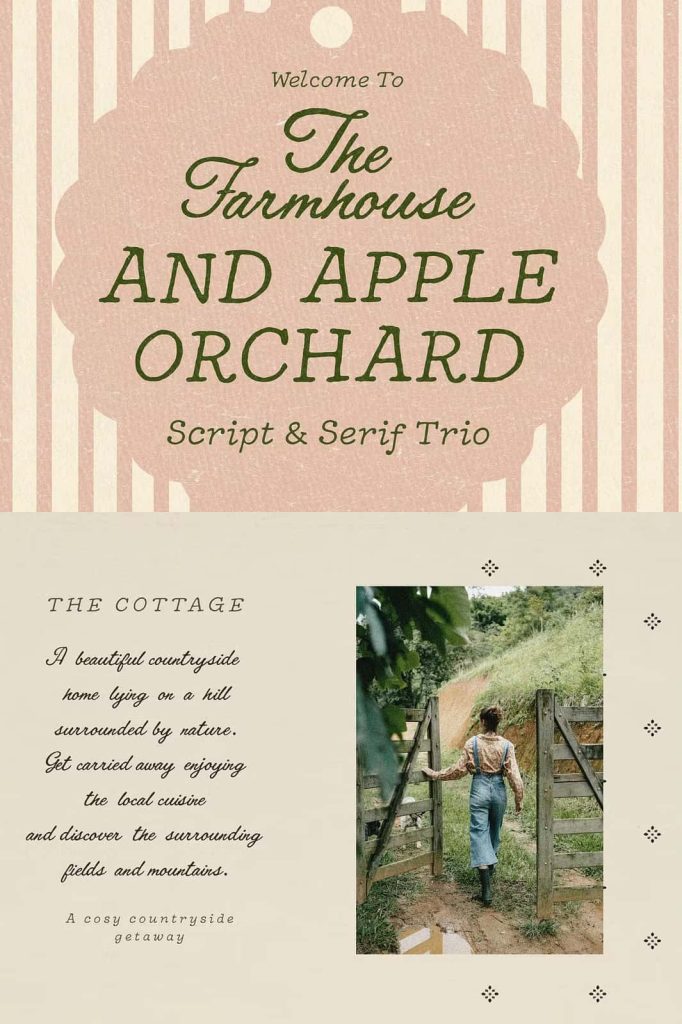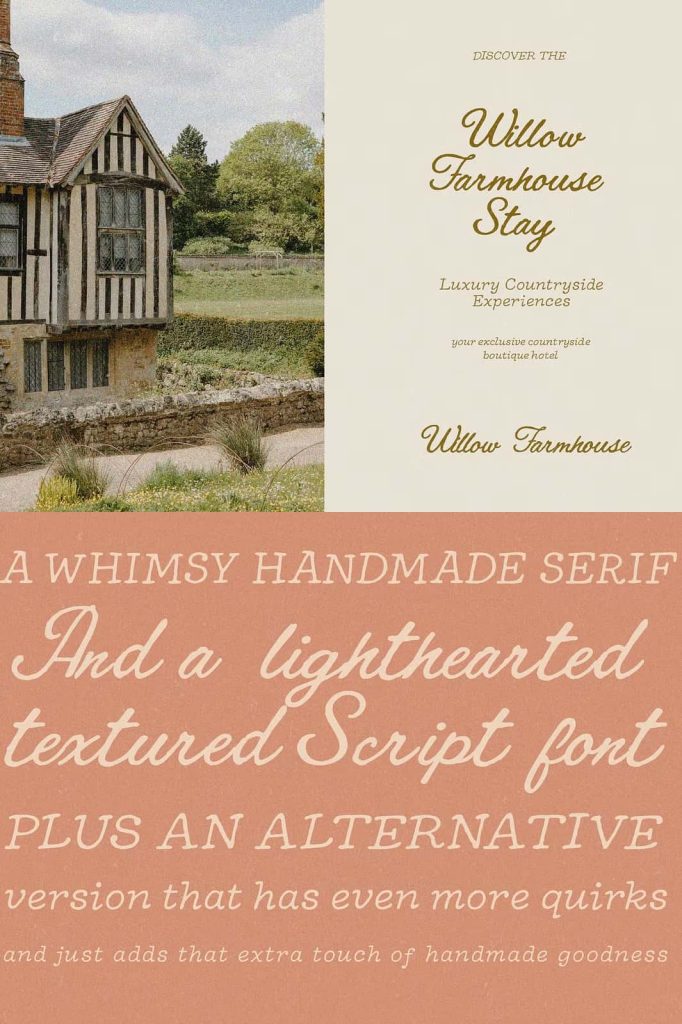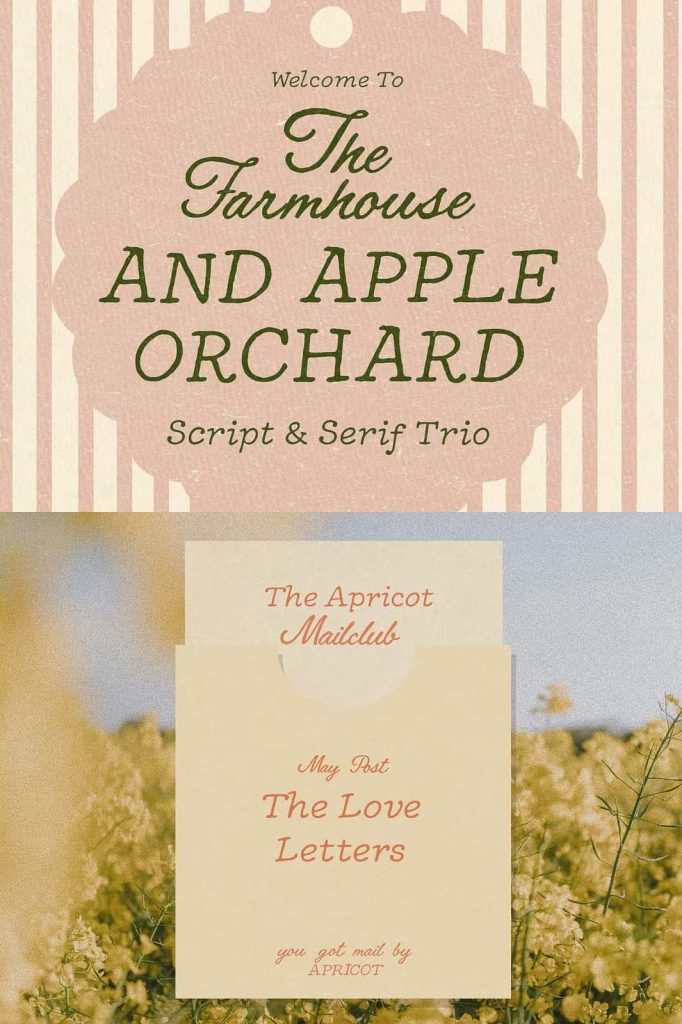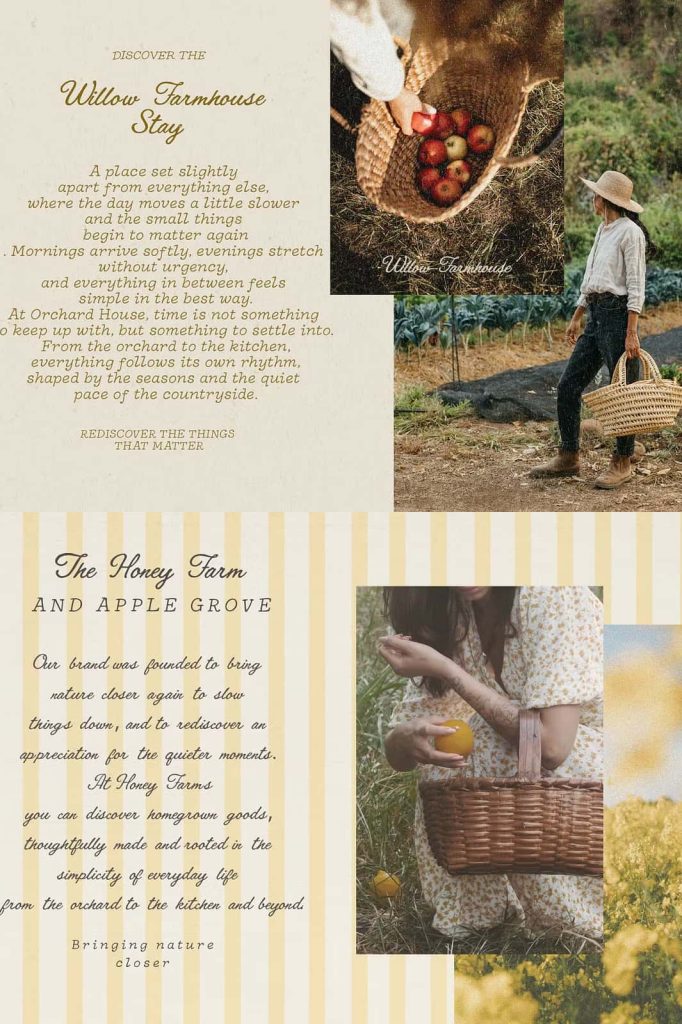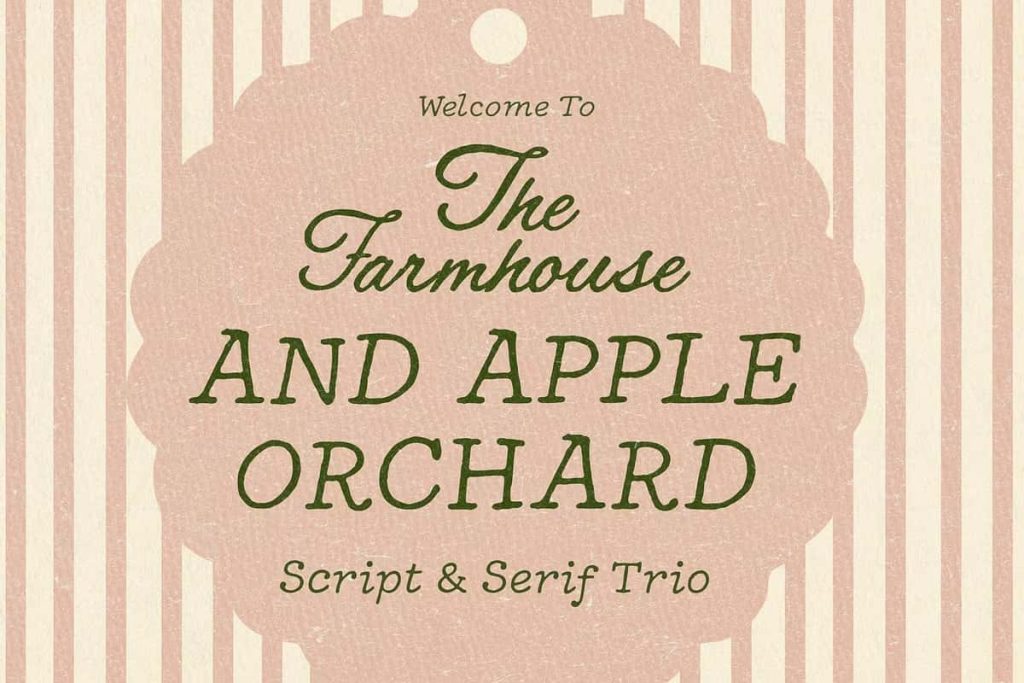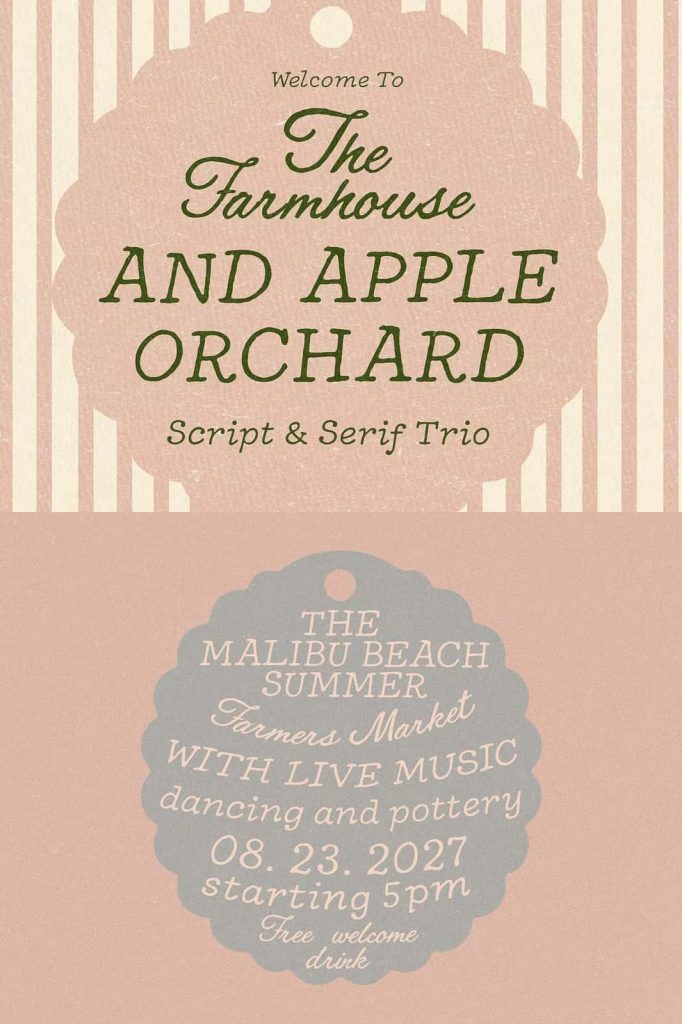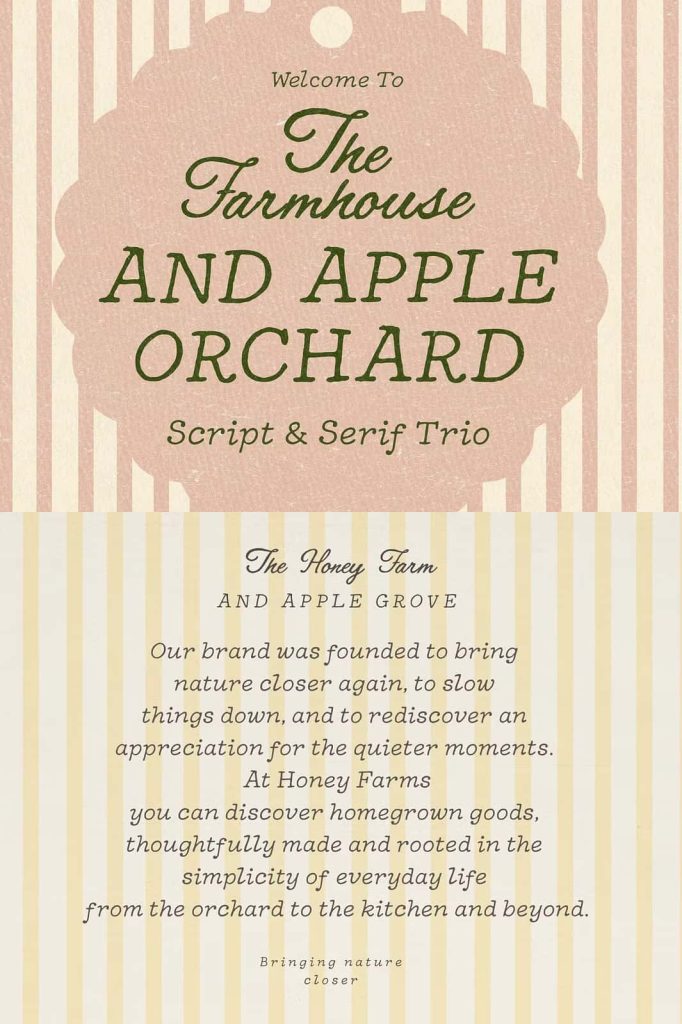
Handwritten Whimsy Serif and Script Font Duo for Elegant and Creative Designs
Handwritten Whimsy Serif and Script is a beautifully crafted font duo that combines the warmth of natural handwriting with the timeless charm of a whimsical serif typeface. Designed to feel authentic, artistic, and effortlessly stylish, this typeface collection helps designers create projects that are both personal and visually captivating. Whether you’re developing a memorable brand identity, designing elegant invitations, or creating eye-catching packaging, this font duo delivers the perfect balance between handcrafted expression and refined typography.
The collection features a softly handwritten script with a naturally flowing rhythm and a whimsical serif that adds structure without losing its playful personality. Together, these complementary typefaces create harmonious typography that feels relaxed, inviting, and professionally designed. Every letter has been carefully developed to preserve the beauty of authentic handwriting while offering the flexibility needed for modern creative projects.
A Perfect Combination of Script and Serif
The true strength of Handwritten Whimsy Serif and Script lies in the way both typefaces work together. The handwritten script introduces movement, warmth, and personality, while the whimsical serif provides stability and elegant contrast. This pairing allows designers to create sophisticated layouts that maintain a handcrafted appearance without sacrificing readability.
The script flows naturally from letter to letter with subtle irregularities that mimic genuine handwriting. Instead of appearing overly polished or mechanical, each character carries unique details that make every word feel personal and expressive. Meanwhile, the serif font introduces a grounded structure that supports headlines, subheadings, and body accents with confidence.
Inspired by Authentic Handwritten Expression
Modern audiences appreciate designs that feel genuine and human. Handwritten Whimsy Serif and Script embraces this philosophy by celebrating the natural imperfections found in handwritten lettering. The script captures a soft rhythm that feels relaxed and spontaneous, allowing your typography to communicate warmth, creativity, and authenticity.
Rather than forcing perfect uniformity, the font embraces gentle variations in shape and movement. These subtle characteristics create typography that feels handcrafted instead of computer-generated, making every project more engaging and emotionally appealing.
Key Features
- Beautiful handwritten script with natural flow
- Elegant whimsical serif companion font
- Alternative bold serif version with extra personality
- Organic handwritten appearance
- Perfect balance between playful and sophisticated typography
- Ideal for branding, logos, invitations, and packaging
- Suitable for print and digital design projects
- Easy to combine for elegant typographic compositions
Alternative Serif for Even More Character
In addition to the standard whimsical serif, this font duo includes an alternative serif version with a bolder appearance and even more playful details. This variation gives designers greater creative freedom when building unique visual identities or experimenting with expressive typography.
The alternative serif maintains the handcrafted spirit of the original while introducing stronger forms and more distinctive curves. It creates typography that feels lively, artistic, and intentionally imperfect, making every design appear effortlessly handwritten. Whether used for logos, product names, or editorial headlines, this alternate version helps projects stand out with confidence.
Create Beautiful Branding and Logo Designs
Typography plays a vital role in establishing a memorable brand identity, and Handwritten Whimsy Serif and Script provides the versatility needed for creative businesses. The combination of elegant serif characters and flowing handwritten script allows designers to build logos that feel welcoming, premium, and full of personality.
This font duo works exceptionally well for boutique brands, artisan products, beauty businesses, florists, cafés, bakeries, fashion labels, photography studios, lifestyle companies, and creative agencies. The handcrafted style creates an emotional connection with audiences while maintaining a polished and professional appearance.
Ideal for Invitations and Special Events
Elegant invitations deserve typography that communicates warmth and celebration. Handwritten Whimsy Serif and Script is perfectly suited for weddings, birthdays, baby showers, bridal events, anniversaries, holiday greetings, and other meaningful occasions.
The handwritten script creates graceful names, signatures, and decorative phrases, while the whimsical serif organizes important information with clarity and sophistication. Together, they produce invitation designs that feel timeless, romantic, and thoughtfully crafted.
Perfect for Packaging and Product Presentation
Beautiful typography can dramatically enhance product packaging, and this font duo delivers a handcrafted aesthetic that customers instantly recognize and appreciate. Whether you’re designing labels for candles, cosmetics, handmade goods, gourmet foods, clothing, or gift products, the combination of script and serif typography creates an attractive and memorable presentation.
The organic appearance helps products feel authentic and carefully made, encouraging stronger emotional connections with customers. This makes Handwritten Whimsy Serif and Script an excellent choice for brands that value craftsmanship, creativity, and premium visual identity.
Versatile Across Print and Digital Media
Handwritten Whimsy Serif and Script performs beautifully across both print and digital applications. Use it for websites, social media graphics, greeting cards, magazines, book covers, posters, presentations, advertisements, merchandise, and editorial layouts. The fonts maintain their handcrafted elegance while adapting effortlessly to different sizes and creative environments.
Whether you’re creating minimalist branding or richly decorative compositions, this versatile font duo gives you the flexibility to design layouts that feel balanced, expressive, and visually engaging.
Why Choose Handwritten Whimsy Serif and Script?
Handwritten Whimsy Serif and Script offers more than beautiful typography—it provides a complete creative solution for designers seeking authentic handwritten charm with the elegance of a carefully crafted serif companion. The flowing script, playful serif, and bold alternate version work together seamlessly to create typography that feels both artistic and professional.
From sophisticated branding and memorable logos to elegant invitations, product packaging, social media graphics, and creative editorial projects, this font duo helps bring warmth, personality, and timeless style to every design. If you’re looking for typography that captures the beauty of handcrafted lettering while remaining versatile for modern creative work, Handwritten Whimsy Serif and Script is an exceptional choice.